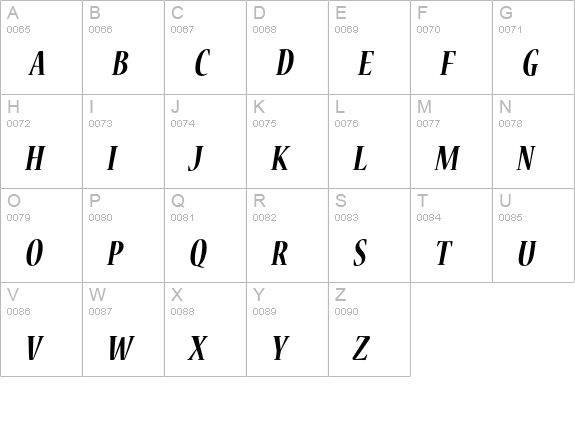
Nueva Std Bold Condensed Italic Font Details
Nueva Std Bold Condensed Italic is a strong, high-contrast, condensed-width, italic variant in the Nueva typeface family \xE2\x80\x94 well suited to headlines, attention-grabbing titles, and strong calls-to-action.
Nueva Std Bold Condensed Italic font exudes a sense of modernity and sophistication with its sleek and stylish design. The bold strokes and condensed form of this typeface make it perfect for making a bold statement in your design projects. The italic styling adds a touch of elegance and flair, making it versatile for a wide range of applications. What's even better is that Nueva Std Bold Condensed Italic font is available for free download at FontsMarket.com. This means you can easily access and use this eye-catching font in your projects without any cost. Whether you're designing a poster, logo, or website, Nueva Std Bold Condensed Italic font will elevate your designs with its unique blend of boldness and elegance. Don't miss out on this opportunity to enhance your design projects with this stunning typeface!